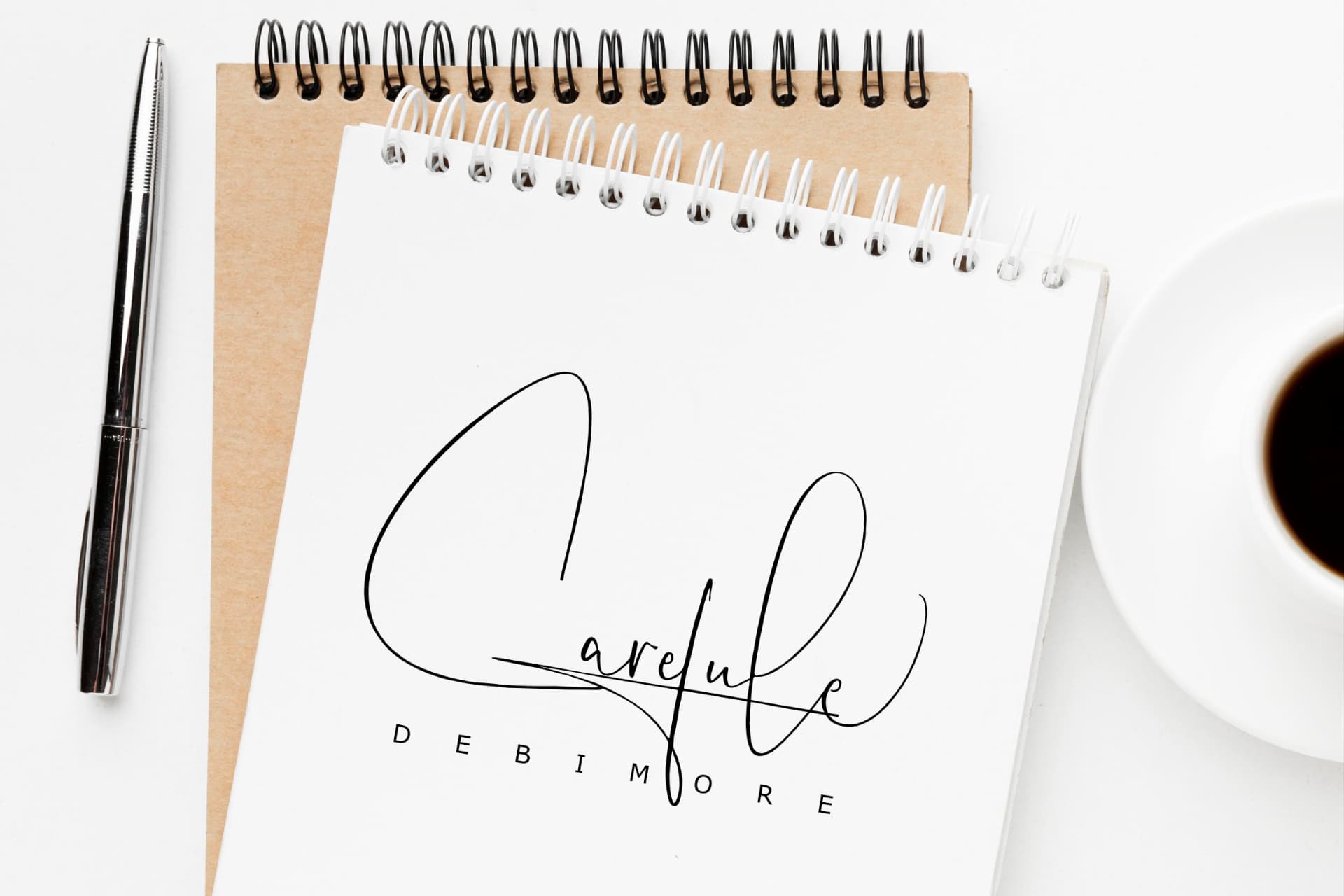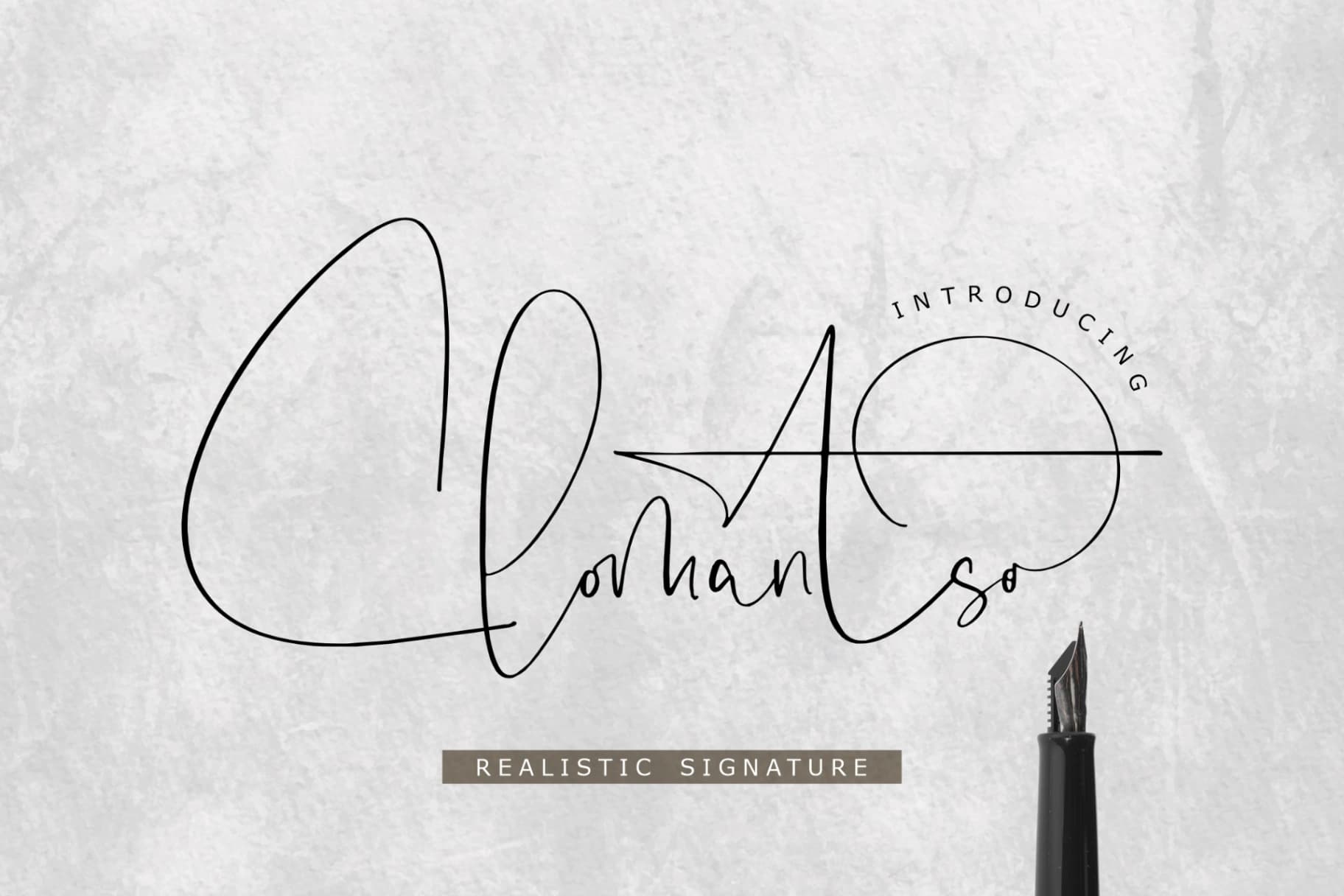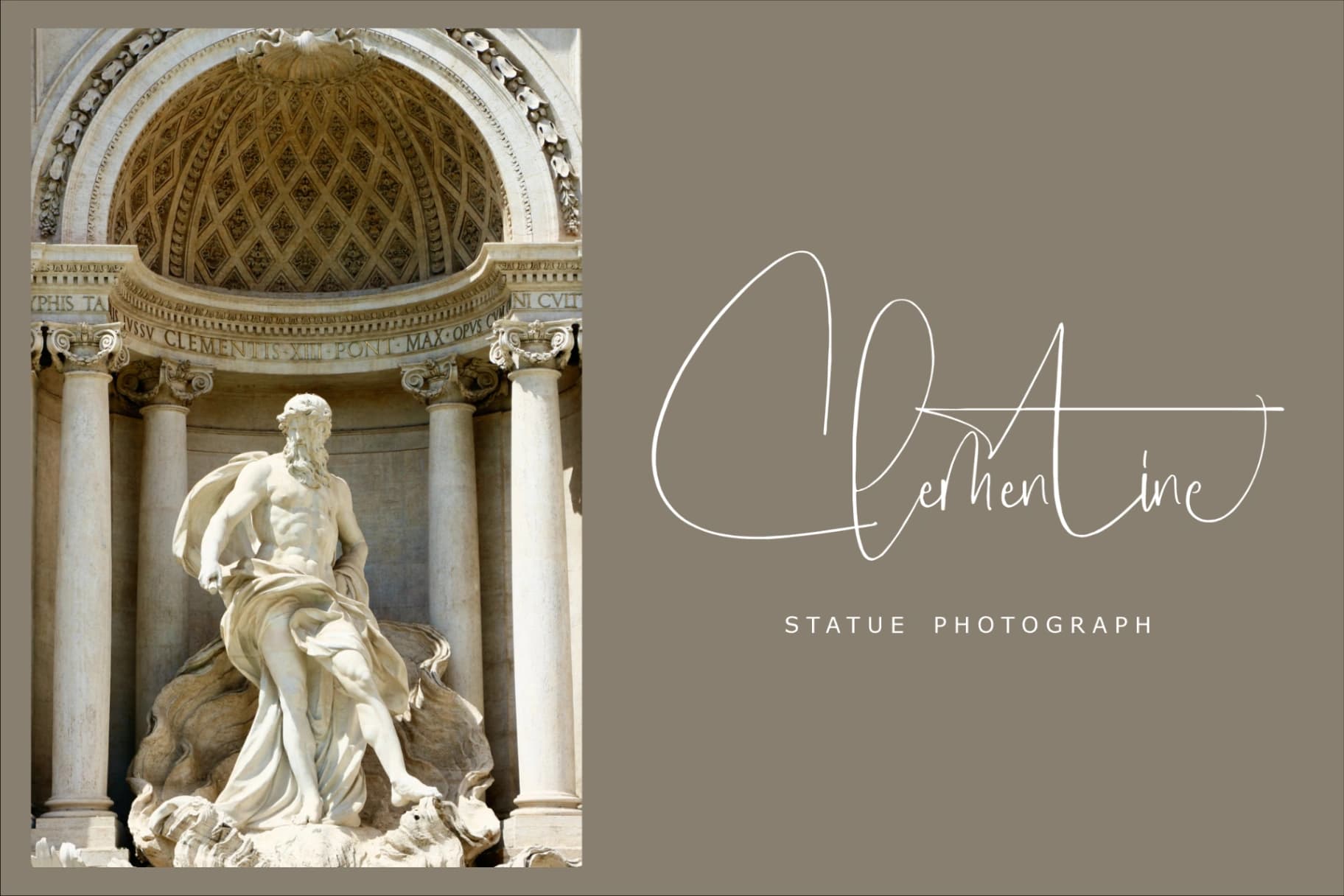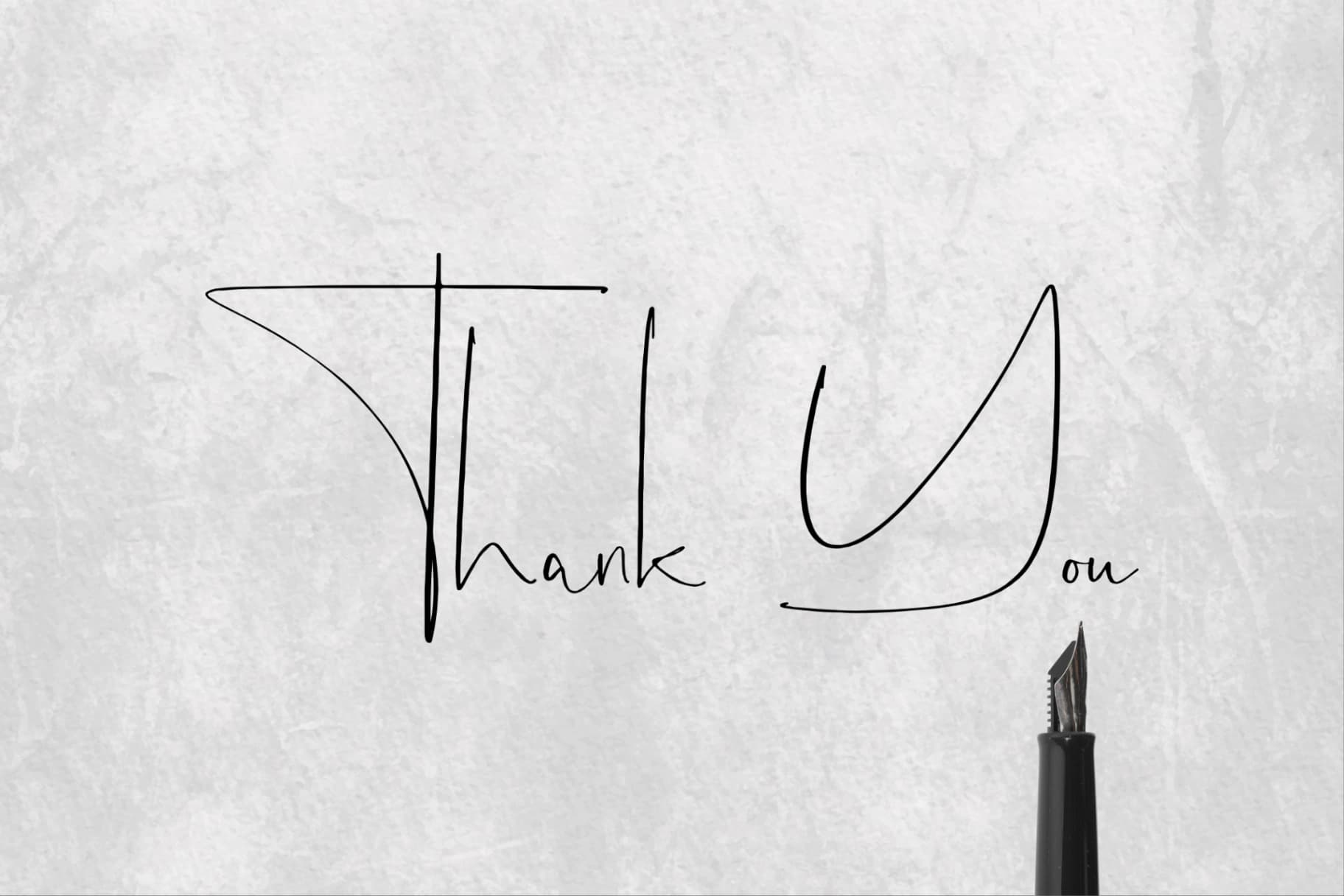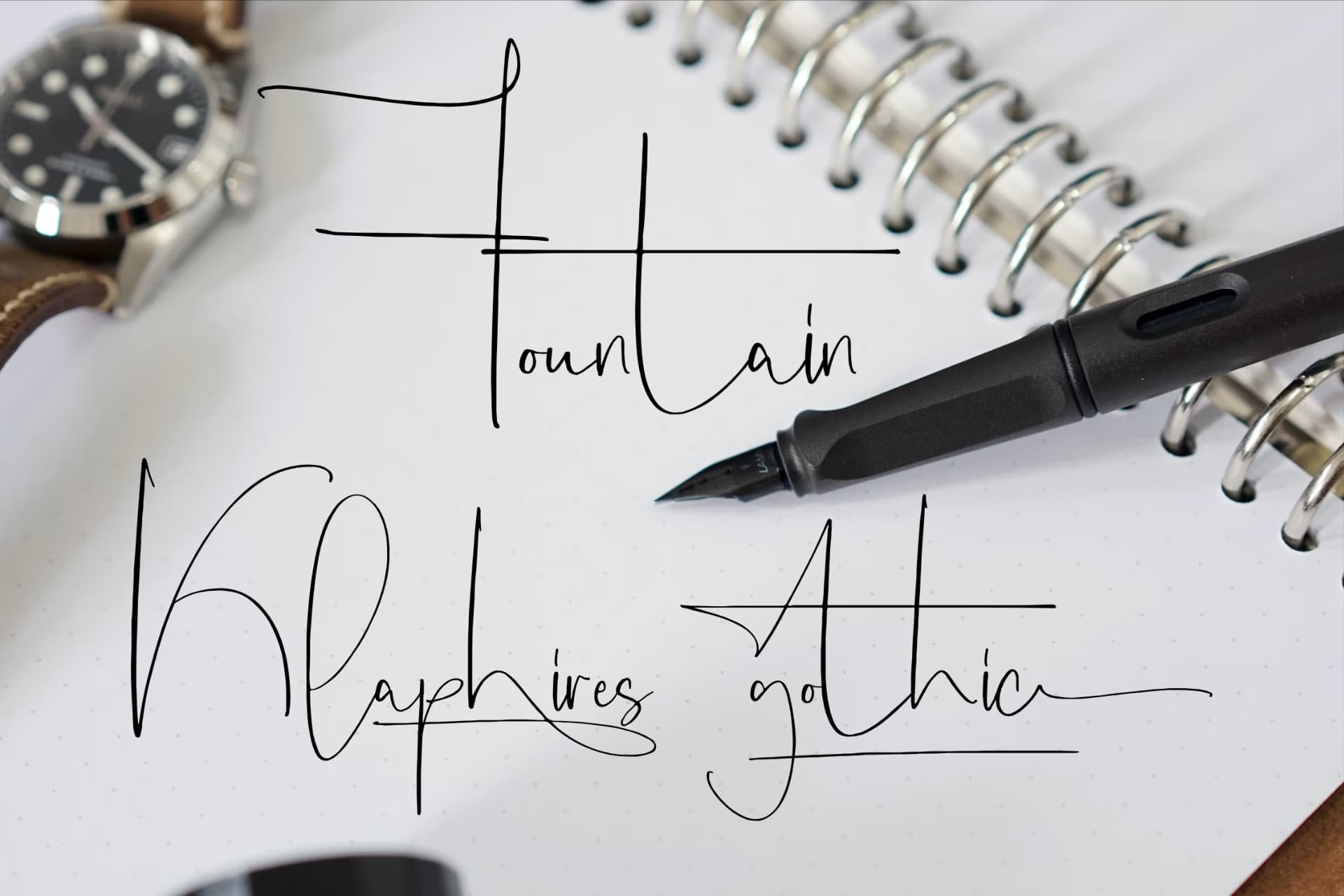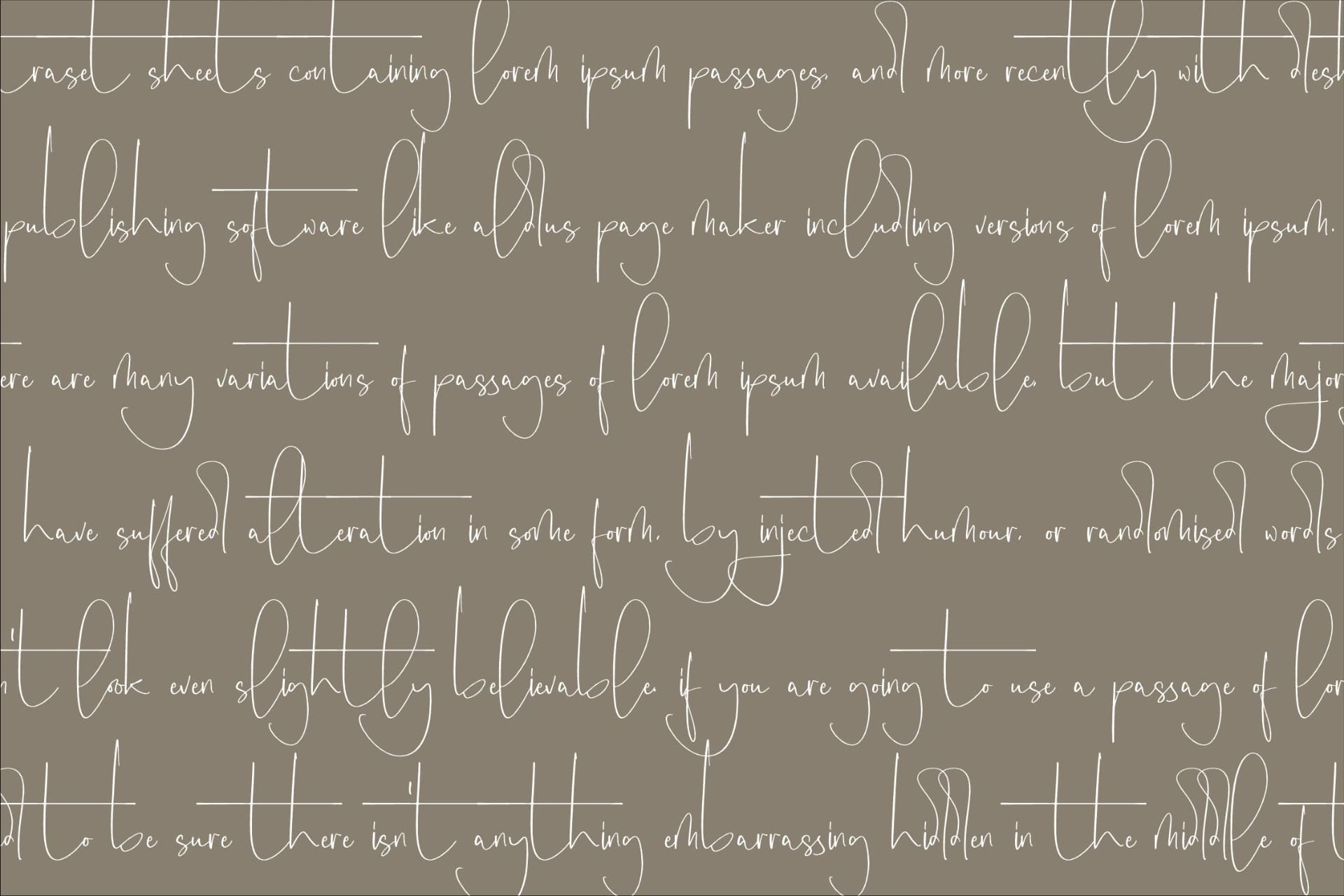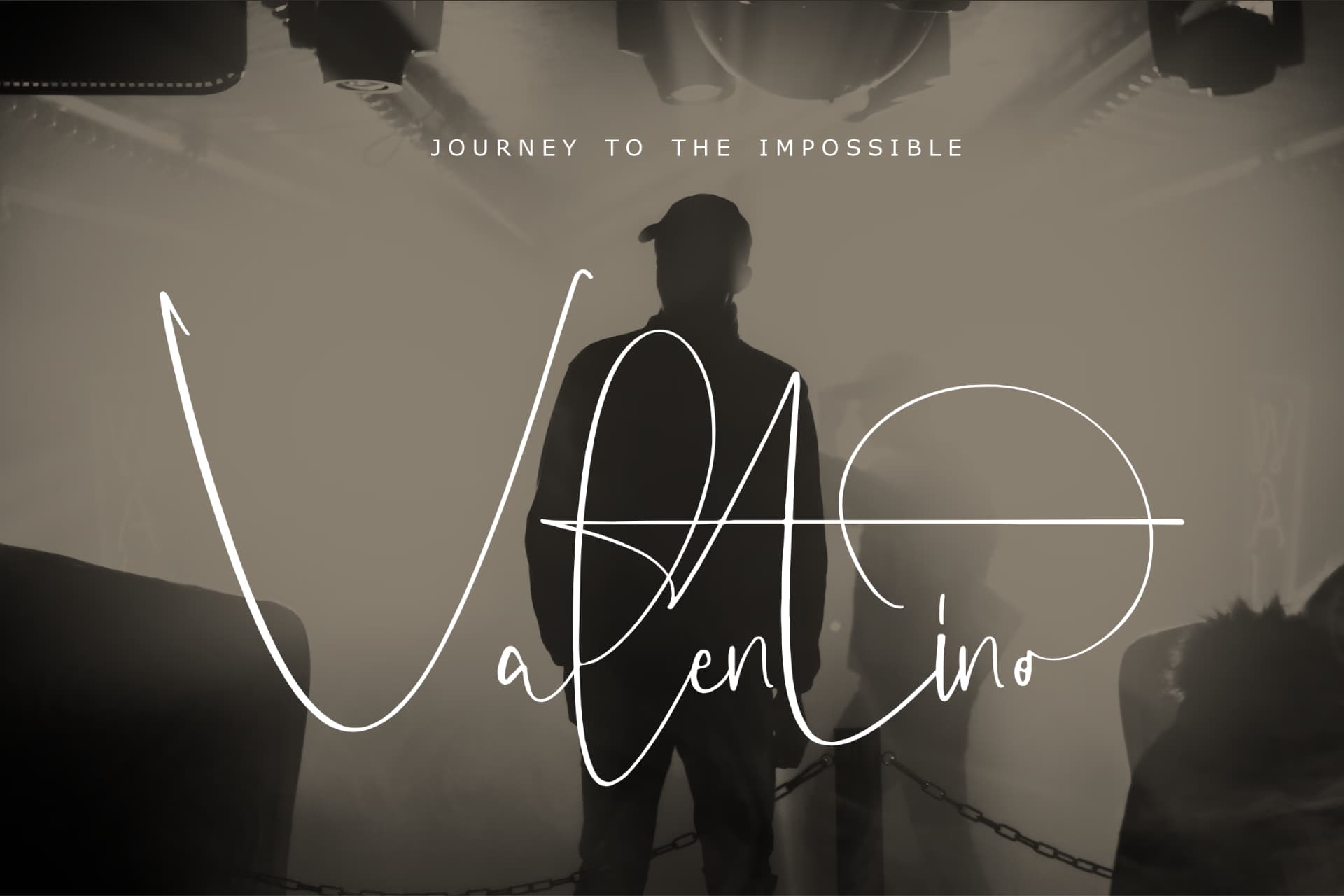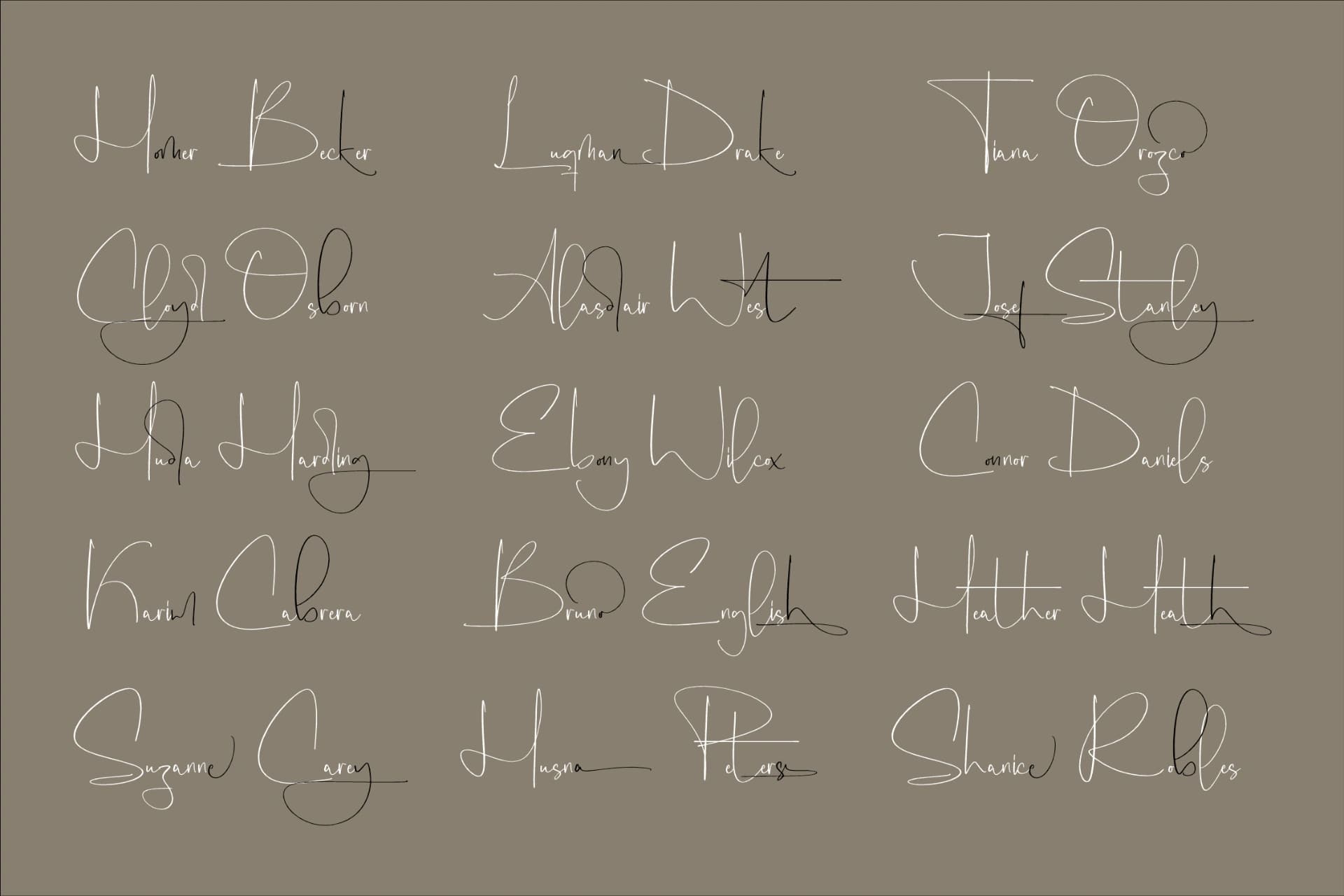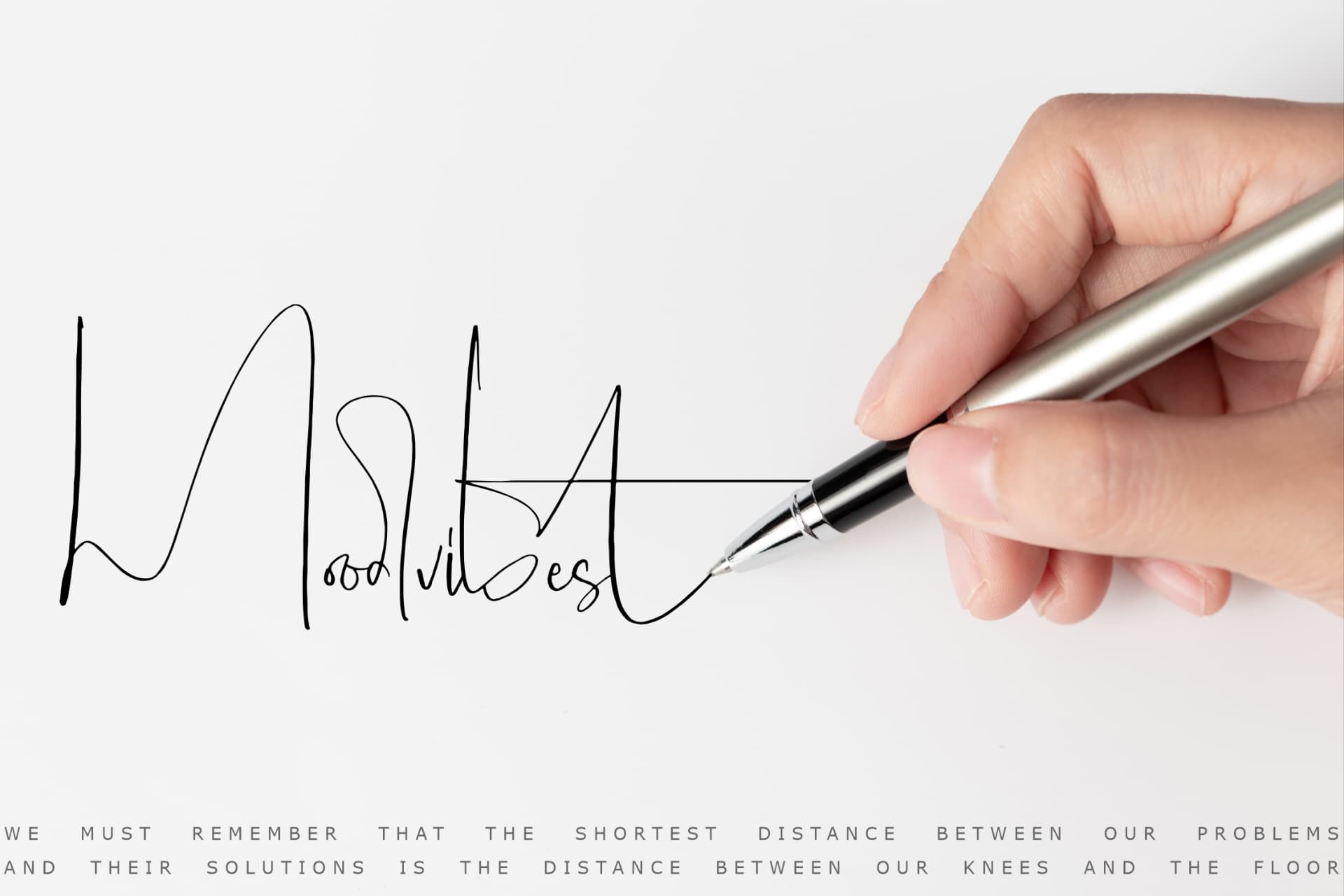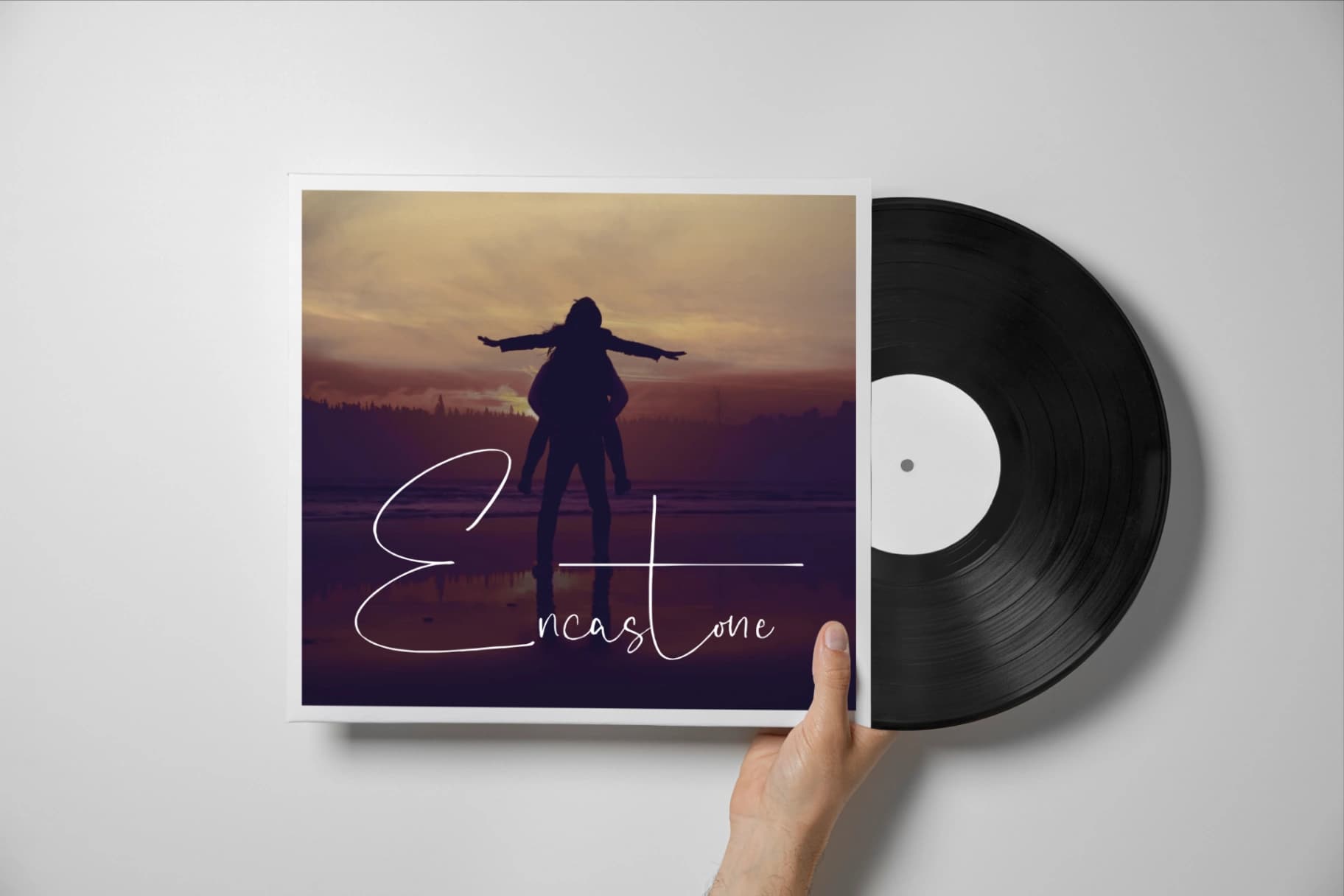
Clomantso - Realistic Signature Font
Inject instant sophistication into your visual identity. Clomantso - Realistic Signature Font is the definitive choice for designers seeking an authentic, handcrafted feel. This signature script captures the spontaneous elegance of a genuine pen stroke, utilizing dynamic flow and exquisite natural connections. Its slender, high-contrast lines mimic the effect of a fine-tipped pen, ensuring a profoundly personalized and upscale presentation across all digital and print mediums.
Define your brand with an unmistakable personal touch. The inherent artistry of Clomantso - Realistic Signature Font makes it perfect for luxury branding, personalized wedding invitations, high-end product packaging, and editorial mastheads demanding a sophisticated flourish. It excels in delivering an air of exclusivity and refined craftsmanship, instantly elevating logos and watermarks from generic concepts to truly bespoke signature assets.
Achieve seamless global design without sacrificing style. Designed with precision, Clomantso - Realistic Signature Font includes a rich set of stylistic alternates, swashes, and ligatures, allowing for infinite customization and a truly unique final signature. With its extensive multilingual support, Clomantso - Realistic Signature Font adapts seamlessly across global markets, making it incredibly versatile for international projects.